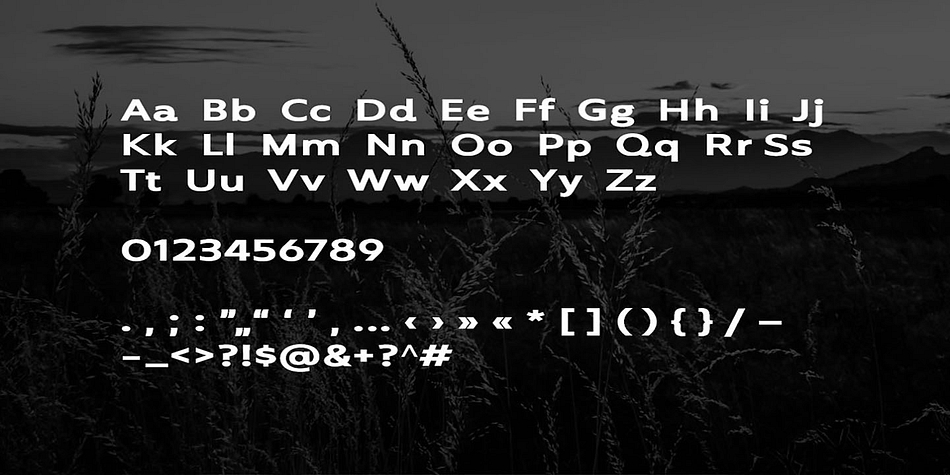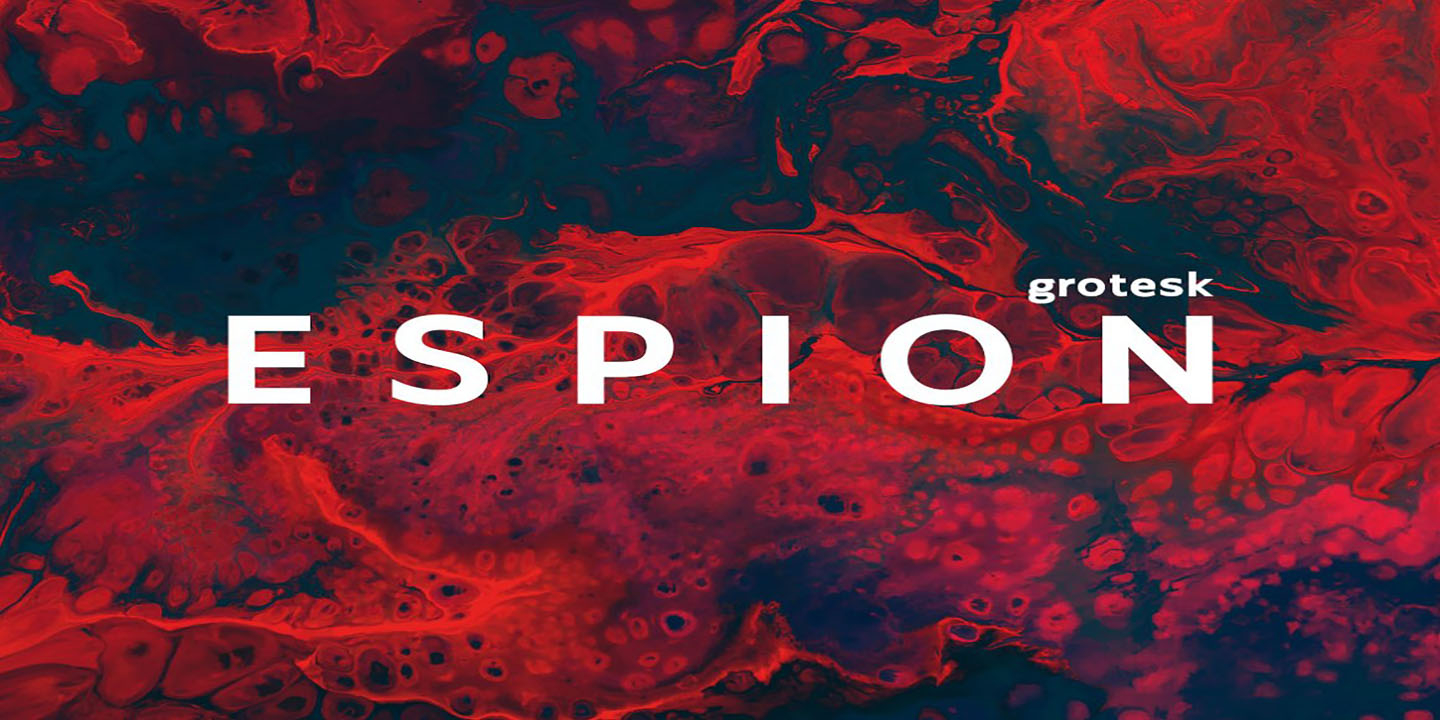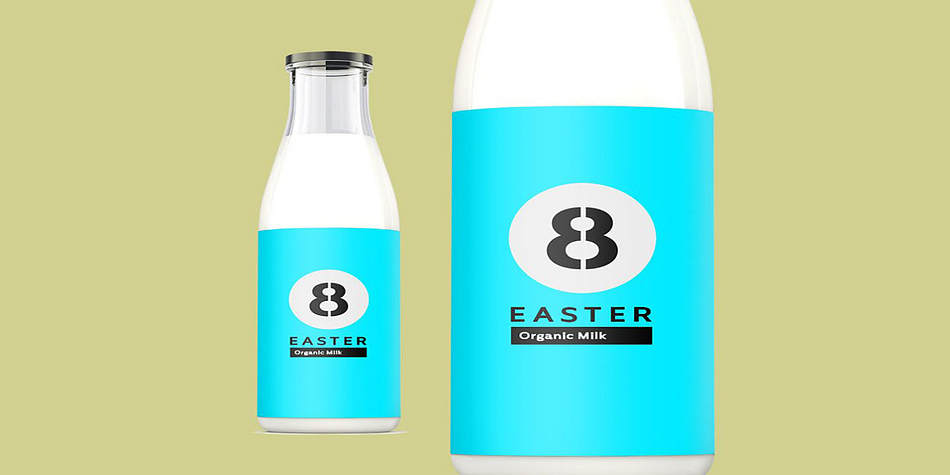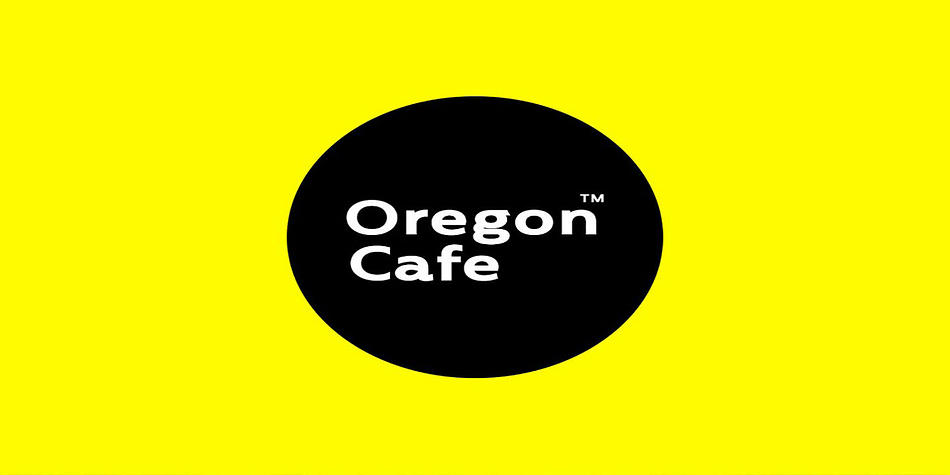
Espion Grotesk
Espion Grotesk is a sans serif font family published by Fontastica.
Espion Grotesk is a unique typeface for headlines, big text, branding, logotypes & display usage. This unique typeface is best for creating outstanding logos, promotional content and marketing graphics that can really grab attention from your visitors. Please see the examples shown above to get an idea about the capability of this typeface.